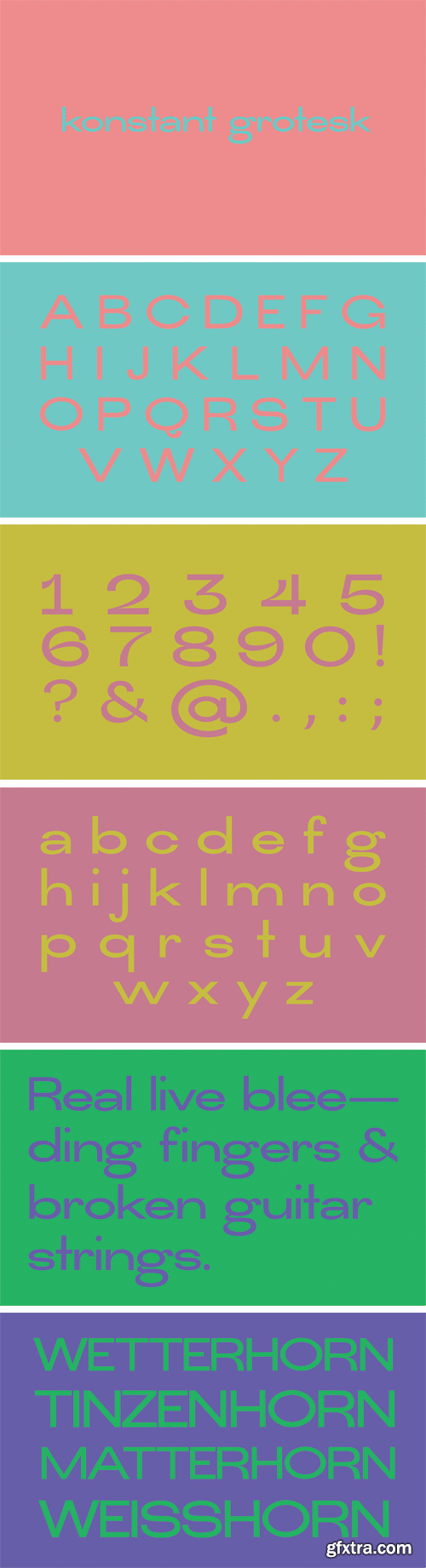
Konstant Grotesk Font
Konstant Grotesk is a wide style sans serif font. It contains uppercase and lowercase letters, numerals and symbols. This font suitable for headlines and logos, badges, labels, posters and other display designs.